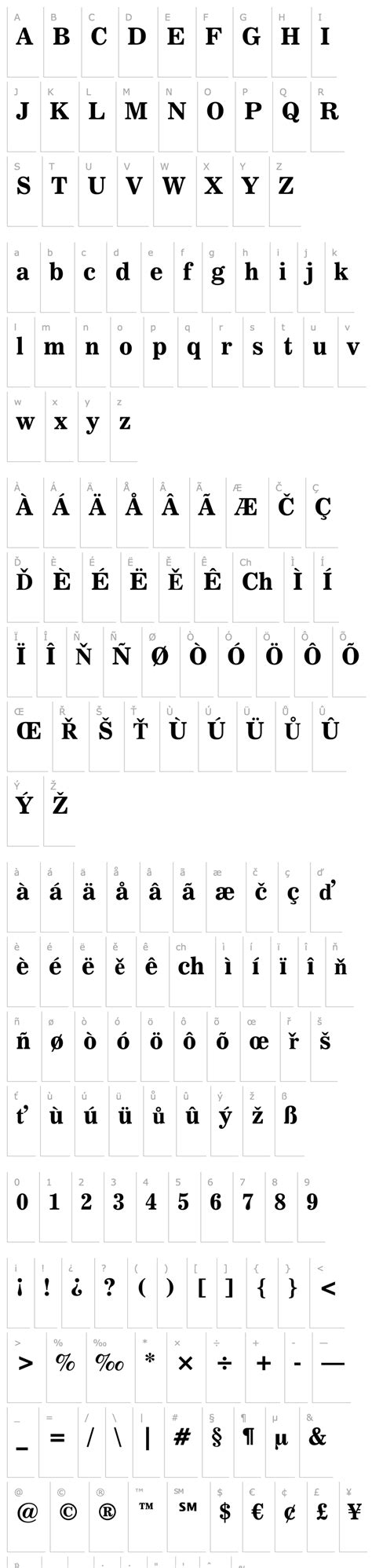
Download Font News 706 Bold: Your Essential Guide
Hey there, font fanatics and design lovers! Today, we’re diving deep into the awesome world of typography with a focus on a specific gem: Font News 706 Bold . If you’re on the hunt for that perfect, impactful font to make your designs pop, you’ve come to the right place. We’re going to explore why this bold typeface is a go-to for so many, where you can snag it, and how to best utilize its powerful presence. So, grab your favorite beverage, get comfy, and let’s talk fonts!
Why Font News 706 Bold Rocks
Let’s be honest, guys, when you need to make a statement, you need a font that can deliver. Font News 706 Bold is precisely that kind of typeface. It’s not shy; it’s bold, it’s confident, and it demands attention. Imagine headlines that grab readers by the eyeballs, project titles that exude strength, or branding elements that leave a lasting impression. That’s the power of a well-chosen bold font, and 706 Bold fits the bill perfectly. Its robust strokes and clear, legible forms ensure that your message cuts through the noise, no matter the medium. Whether you’re designing for print, web, or even large-format graphics, this font possesses a versatility that belies its strong character. It’s the kind of font that can anchor a design, providing a solid foundation upon which other, more delicate elements can play. The beauty of a font like this lies in its ability to communicate authority and reliability without sacrificing readability. It’s a tricky balance to strike, but Font News 706 Bold manages it with apparent ease.
Tips for Using Font News 706 Bold Effectively
So, you’ve managed to download Font News 706 Bold , and now it’s time to put it to work! Here are some killer tips to make sure you’re using this powerful font to its full potential. Firstly, less is often more . Bold fonts like 706 Bold are designed to be impactful, so using them sparingly for headlines, subheadings, or key call-to-action elements is usually the most effective approach. Overusing it can make your design feel cluttered and overwhelming. Secondly, consider the contrast . Pair Font News 706 Bold with a lighter, more neutral font for body text. This creates a visual hierarchy that guides the reader’s eye and makes your content much easier to digest. Think of it like this: the bold font grabs their attention, and the lighter font keeps them engaged. Thirdly, spacing is key . Pay attention to the kerning (the space between individual letters) and leading (the space between lines of text). Even the best bold font can look awkward if the spacing is off. Most design software allows you to adjust these settings finely. Finally, consider the context . Is Font News 706 Bold the right tone for your project? Its boldness conveys strength, seriousness, and impact. Ensure this aligns with the message and audience you’re targeting. For playful or delicate designs, you might need a different tool, but for anything requiring authority and presence, 706 Bold is a champion. Experiment with different sizes and weights if available, but remember its primary strength lies in its boldest iteration. Using it as a graphic element in itself, perhaps repeating it or using it in a unique layout, can also add an extra layer of visual interest. Don’t be afraid to play with its application, but always keep legibility and the overall aesthetic in mind. This font is a tool, and like any good tool, understanding its strengths and limitations will help you achieve professional-grade results. Remember to test your designs across different platforms and screen sizes to ensure the bold impact translates well everywhere.
When to Choose Font News 706 Bold
Deciding on the right typeface can sometimes feel like a monumental task, but let’s break down when Font News 706 Bold is your absolute best friend. If your project demands impact and authority , this is your go-to. Think about posters for events that need to grab attention from across a room, bold typographic logos that need to stand out on a business card, or website hero banners that need to communicate a strong message immediately. Font News 706 Bold excels in these scenarios because its strong character ensures it won’t get lost in the visual noise. It’s perfect for conveying a sense of reliability and seriousness , making it a fantastic choice for corporate branding, legal documents, or any communication where trust and professionalism are paramount. If you’re creating headlines or titles that need to cut through dense blocks of text, 706 Bold provides that necessary contrast and visual weight. It helps to break up content and draw the reader’s eye to the most important information. For display purposes , where the text is seen at larger sizes, its bold nature shines. This could be anything from signage to large print advertisements. The clarity and strength of the letterforms are maintained even when scaled up significantly. However, consider its application for long-form reading . While legible, its boldness might become fatiguing if used for extensive body copy. It’s generally best reserved for shorter, impactful text elements. So, if you need your message to be loud, clear, and undeniably present, download Font News 706 Bold and let it do the heavy lifting. It’s the font equivalent of a perfectly placed exclamation point, but with far more sophistication and design integrity. Its inherent strength makes it ideal for projects aiming for a modern, clean, and confident aesthetic. Don’t underestimate the power of a bold font to shape perception; 706 Bold is a prime example of how typography can directly influence the message and the feeling it evokes. Use it wisely, and it will become an indispensable part of your design arsenal.
Exploring Other Weights and Styles
While we’re raving about Font News 706 Bold , it’s worth remembering that many font families come with a whole spectrum of weights and styles. If you download Font News 706 Bold , take a moment to see if the foundry offers lighter weights (like Regular, Light, or Book) or even different stylistic sets. Having a cohesive font family in your toolkit is incredibly valuable. You can use the bold version for your headlines and then seamlessly switch to a lighter weight for body text, ensuring a consistent brand voice and visual harmony throughout your design. This approach offers a professional look that’s hard to achieve with disparate fonts. Imagine using Font News 706 Light for captions, 706 Regular for body paragraphs, and then BAM! hitting them with Font News 706 Bold for the main title. It creates an instant hierarchy and visual flow that’s both pleasing and effective. Exploring these related styles allows for greater design flexibility and enables you to build a richer typographic system. Sometimes, the bold version might be too much for certain applications, and having a more subdued option from the same family can save the day. Conversely, if you find the regular weight isn’t quite cutting it, you’ll know the bold option is ready and waiting. So, when you’re on the hunt for that perfect bold font, always glance at the available options within its family. It might just unlock a whole new level of design sophistication for you, guys! It’s all about building a versatile typographic palette that can adapt to various project needs, ensuring you always have the right tool for the job. This cohesive approach not only streamlines your workflow but also enhances the overall professionalism and aesthetic appeal of your creative output. Don’t limit yourself to just one style; embrace the full potential of a well-crafted font family.
Conclusion: Make Your Mark with Font News 706 Bold
Alright folks, we’ve covered a lot of ground on the fantastic Font News 706 Bold . From its inherent power and versatility to tips on where to download it and how to use it effectively, hopefully, you’re feeling inspired. This typeface is a true workhorse for anyone needing to add punch and clarity to their designs. Remember, the right font can transform a good design into a great one. So, go ahead, download Font News 706 Bold , experiment with it, and make your next project stand out. Happy designing!